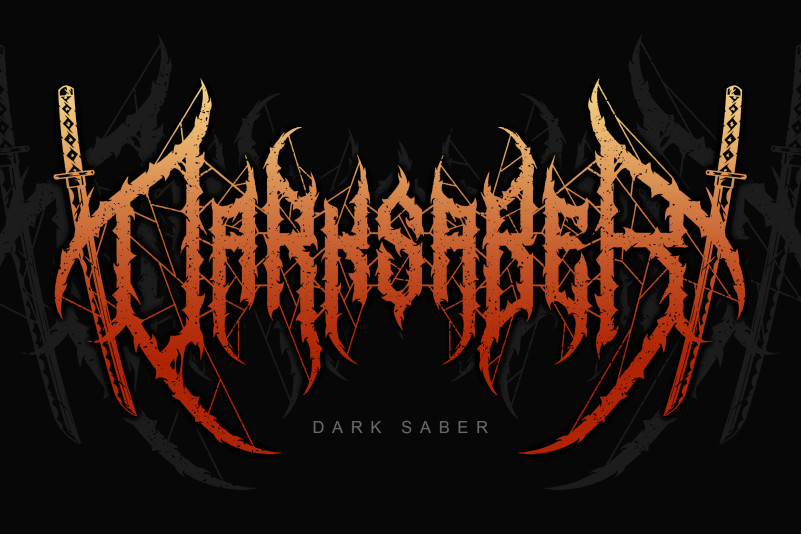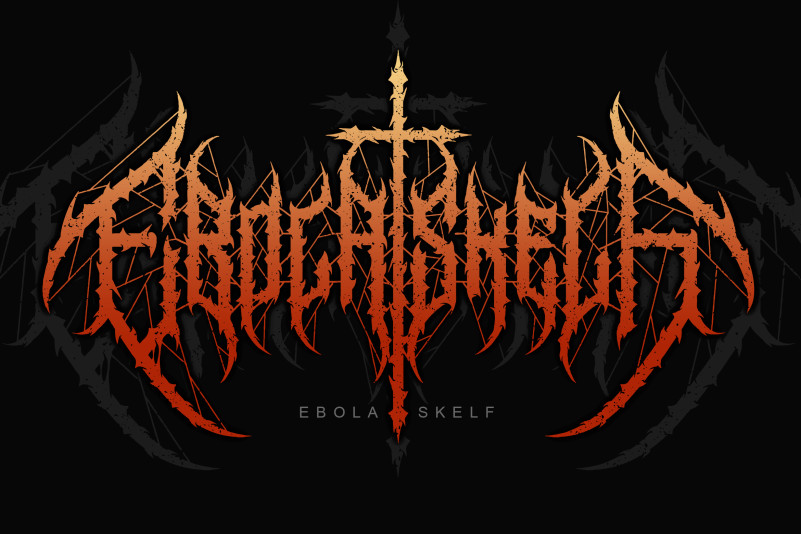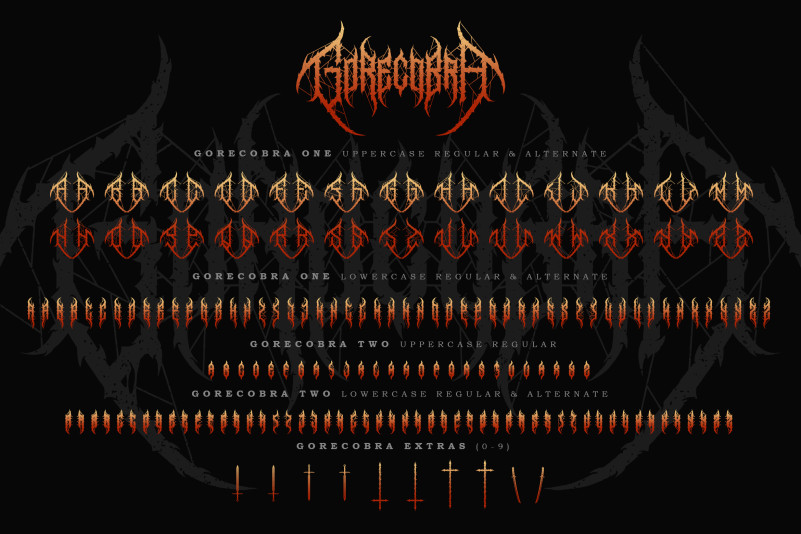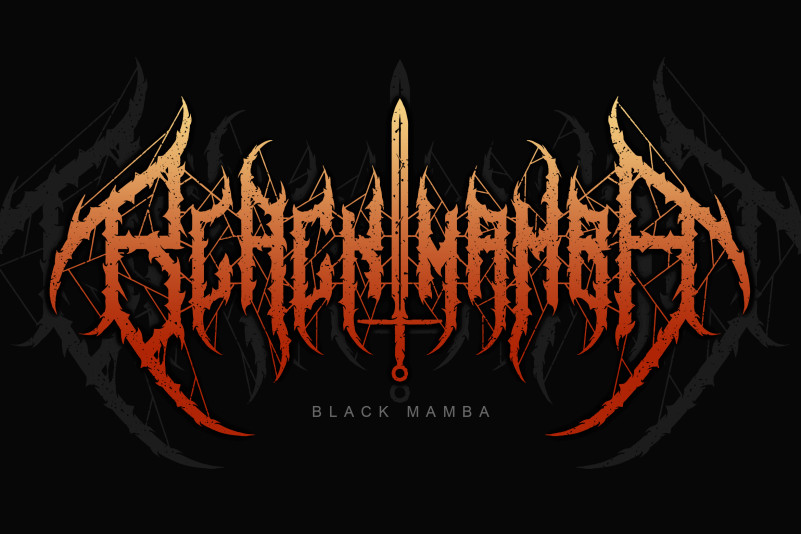
Gorecobra Font
Gorecobra Display Font is a carefully crafted font, which features a very heavy black metal feel. Gorecobra suitable for metal band logos, merchandise, clothing, apparel, or anything that needs a black metal feel.